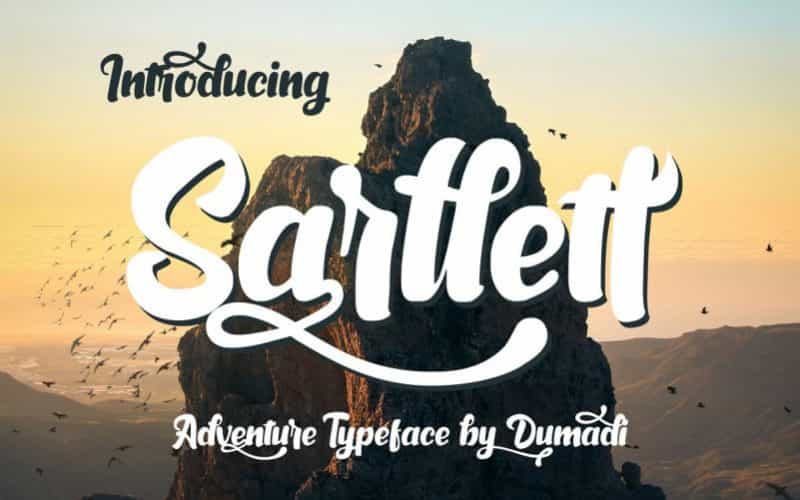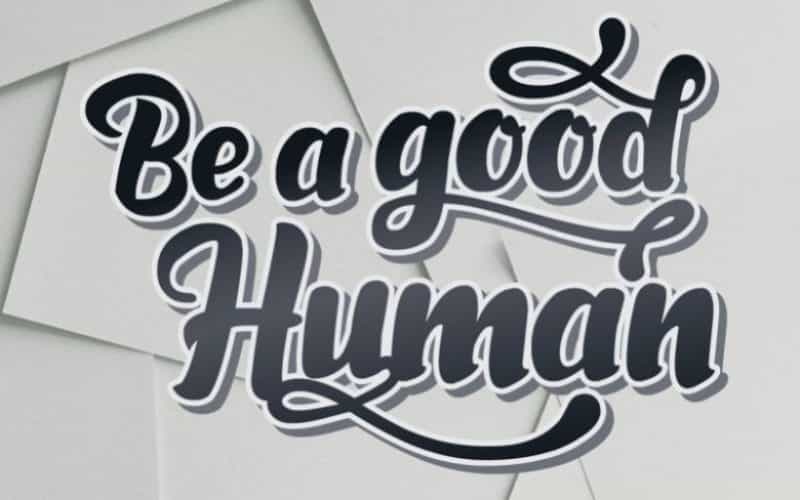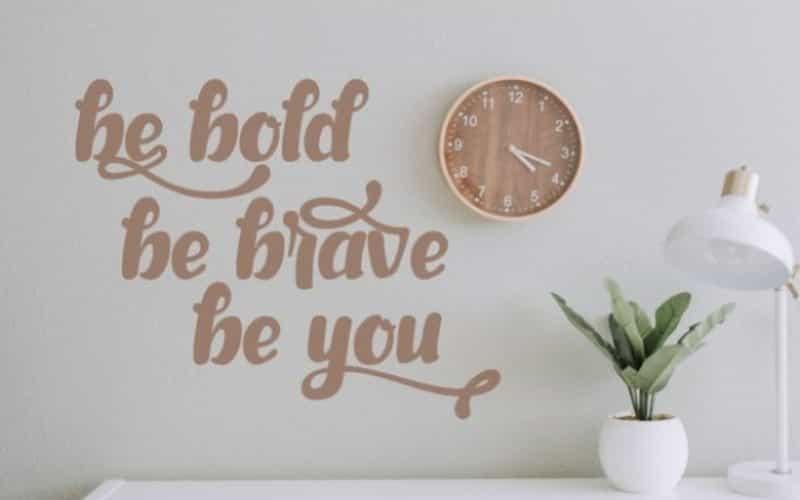
Discover Sarllett Script Font, part of the Brush Various collection—a versatile and unique font perfect for adding a personal touch to your projects. Download it for free and enjoy crafting designs with style, from invitations to social media posts. This font is available exclusively for personal use, giving you the freedom to create without limits. Unlock your creativity with Sarllett Script Font today!
Sarllett Typeface by Dumadi is so amazing the typeface look that will make the touch of your design project. It is perfect for this aspects like, now wall arts, t-shirt, ,invitations particularly a wedding invitation card you can use the rest for other designing aspects as you deem fit.